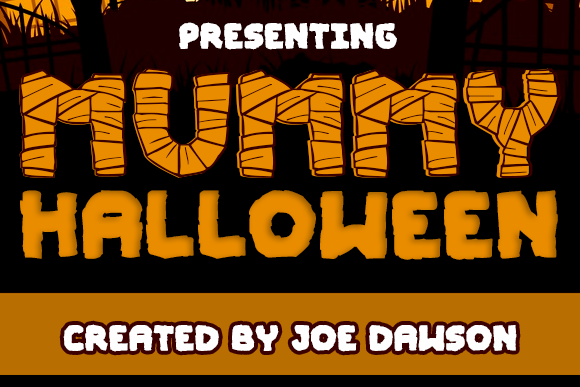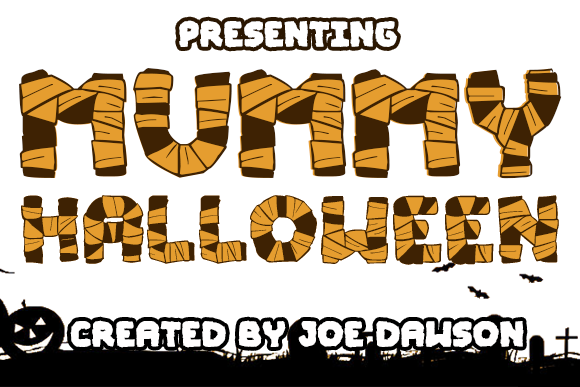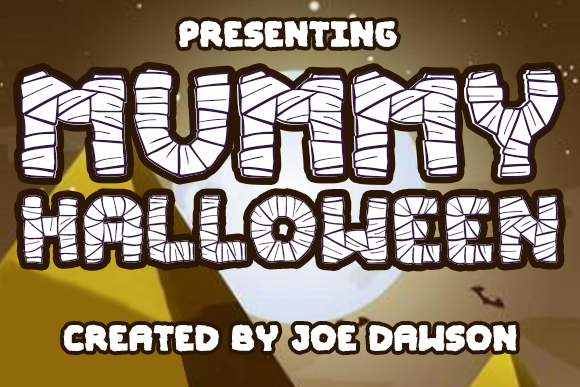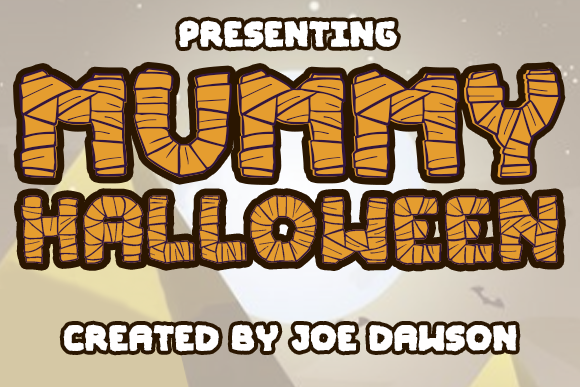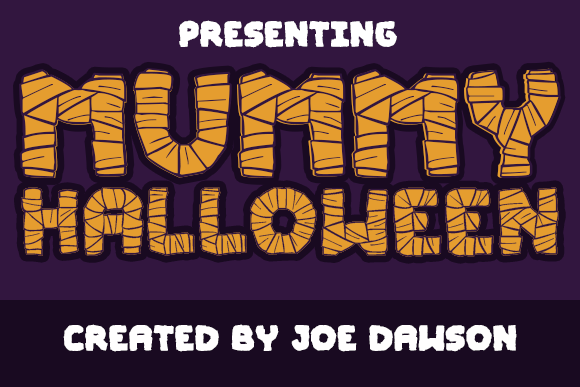
Introduction to Mummy Halloween Font
Mummy Halloween is a bold and chunky lettered display font.
Add this font to your creative Halloween themed ideas and notice how it will make them stand out .
Key Features of Mummy Halloween Font
Why Choose Mummy Halloween Font?
Mummy Halloween Font offers exceptional quality and versatility, making it a valuable addition to your design toolkit. Whether you’re creating for personal projects or commercial use, Mummy Halloween Font delivers professional results.